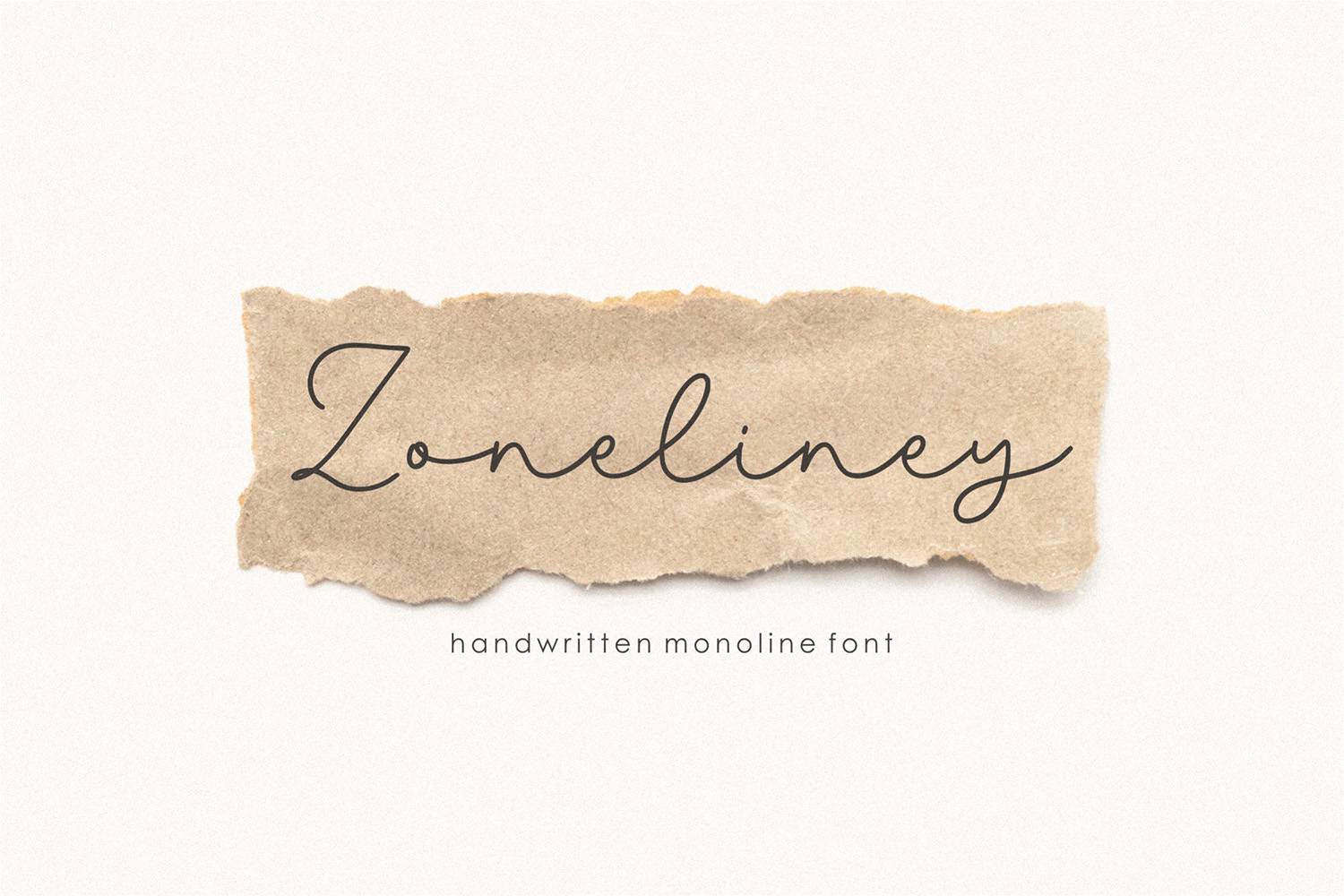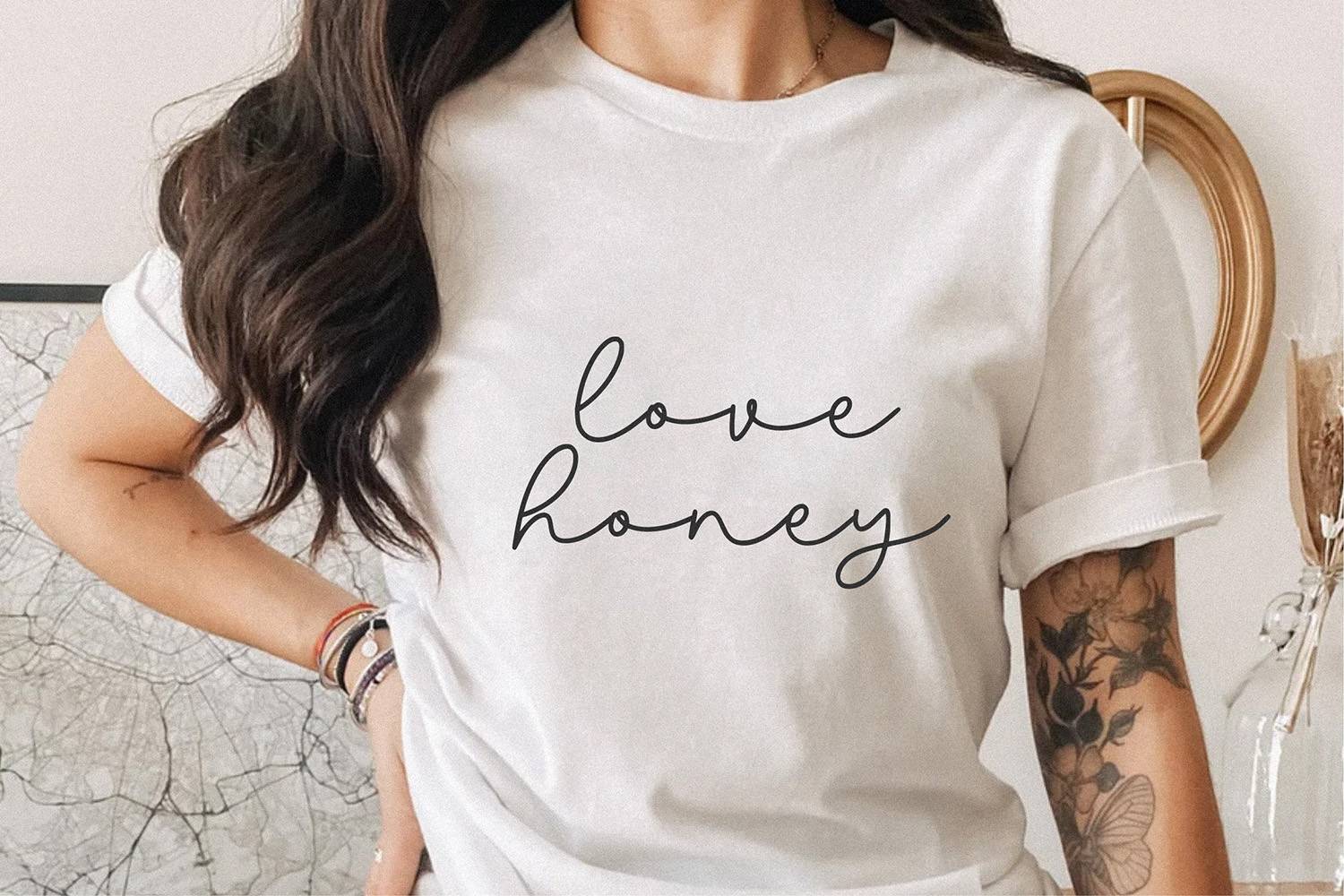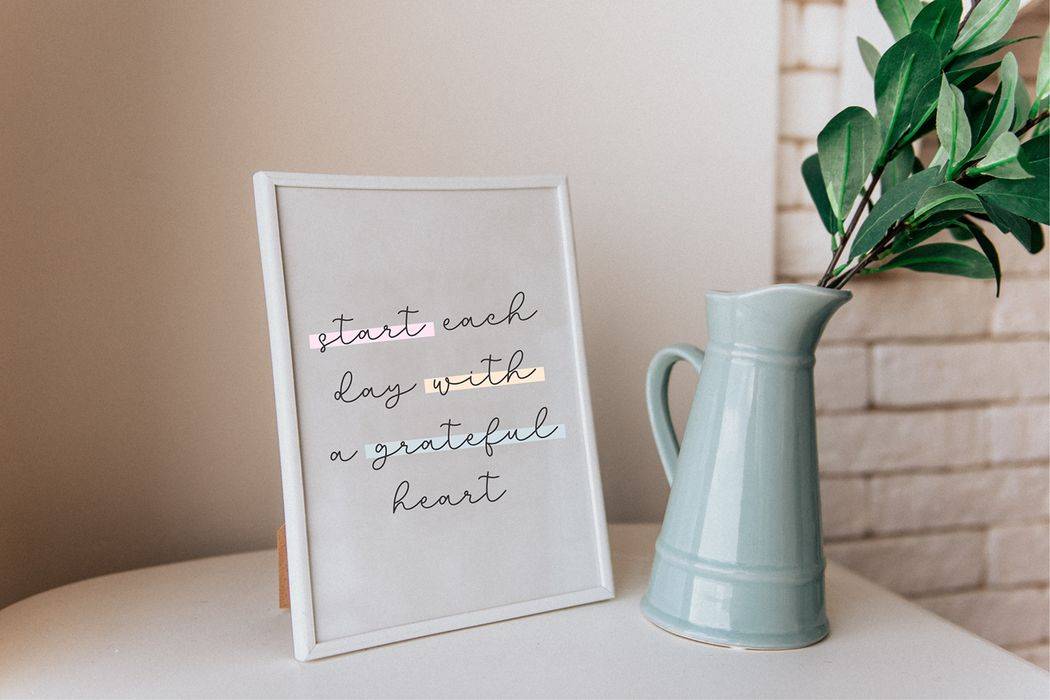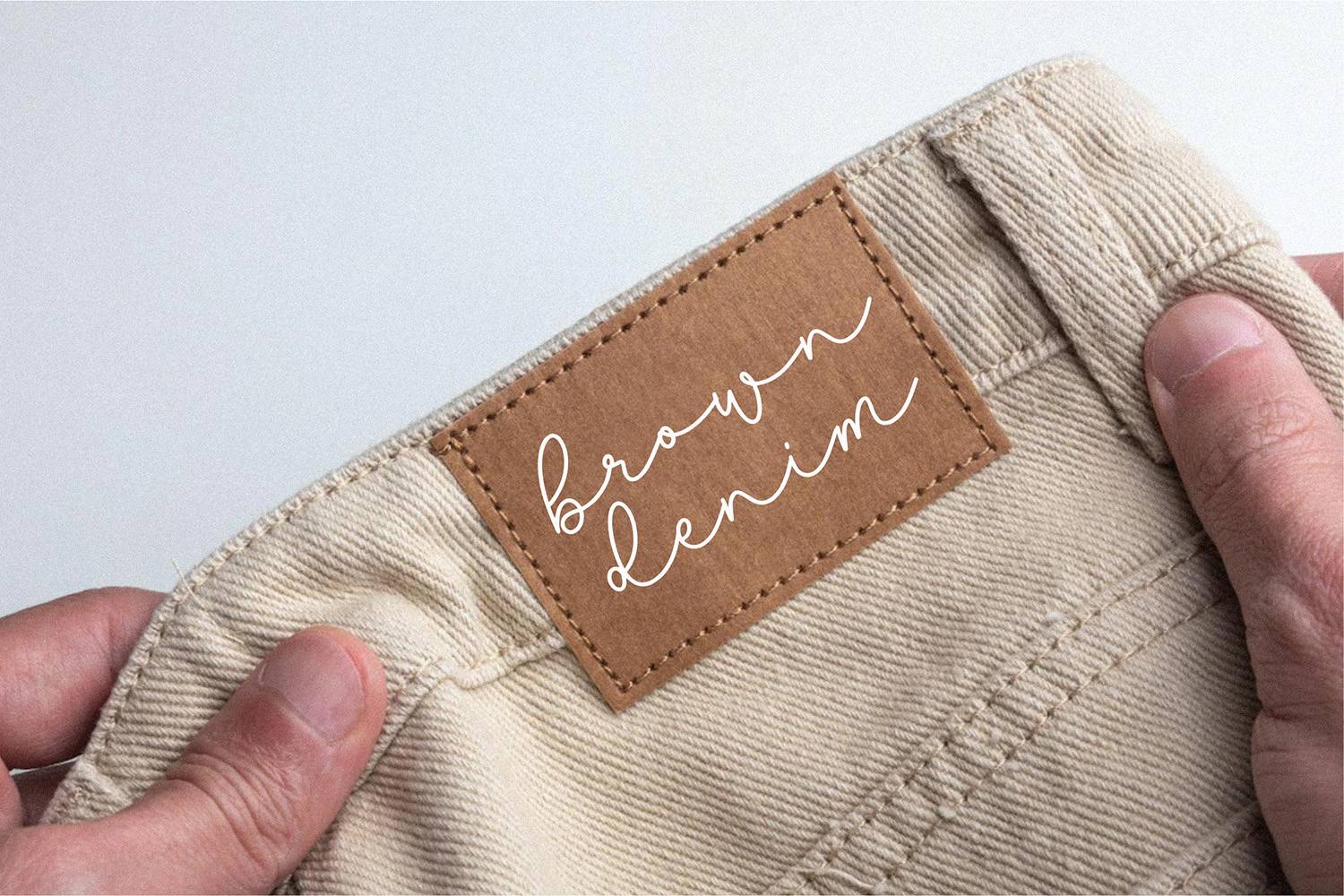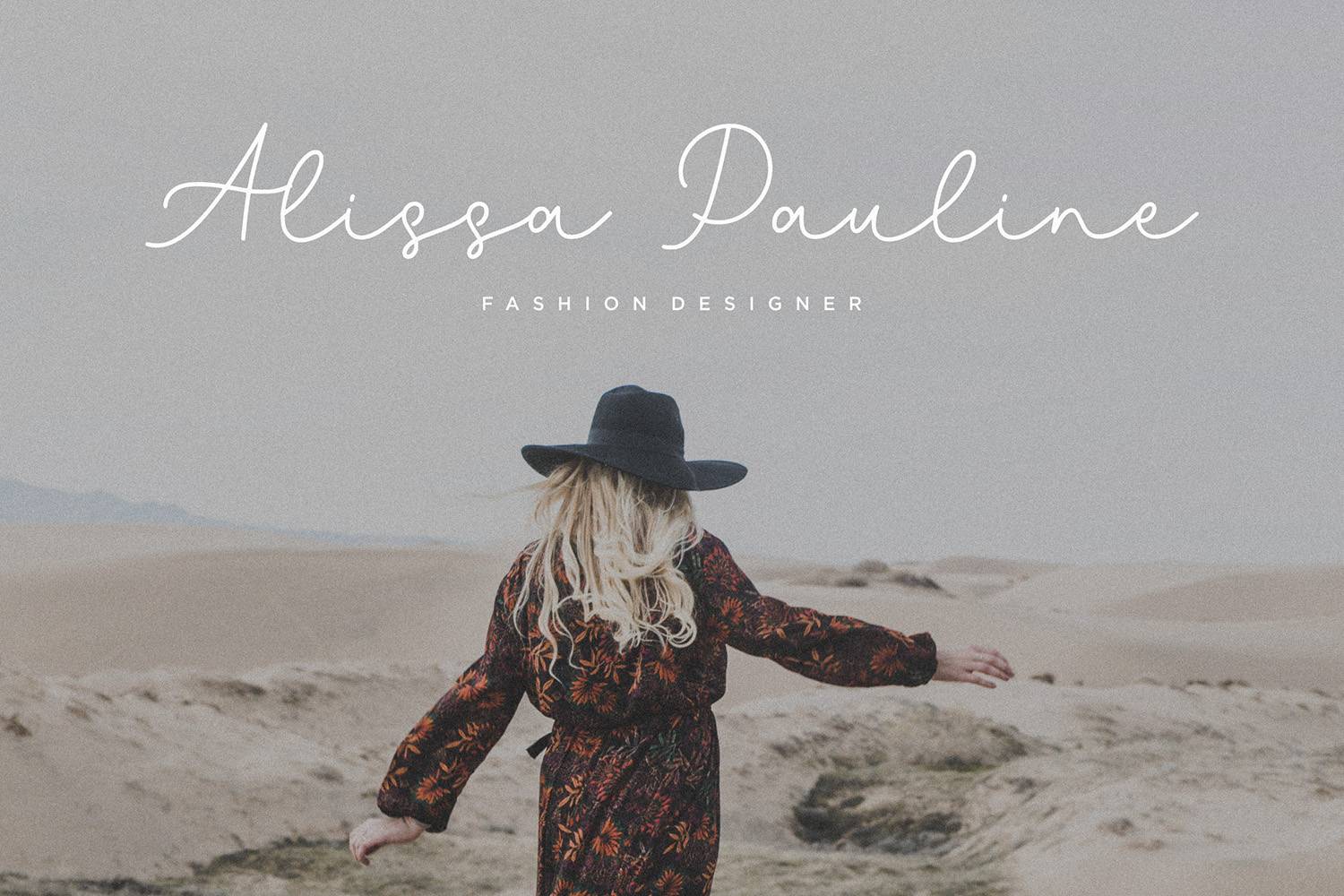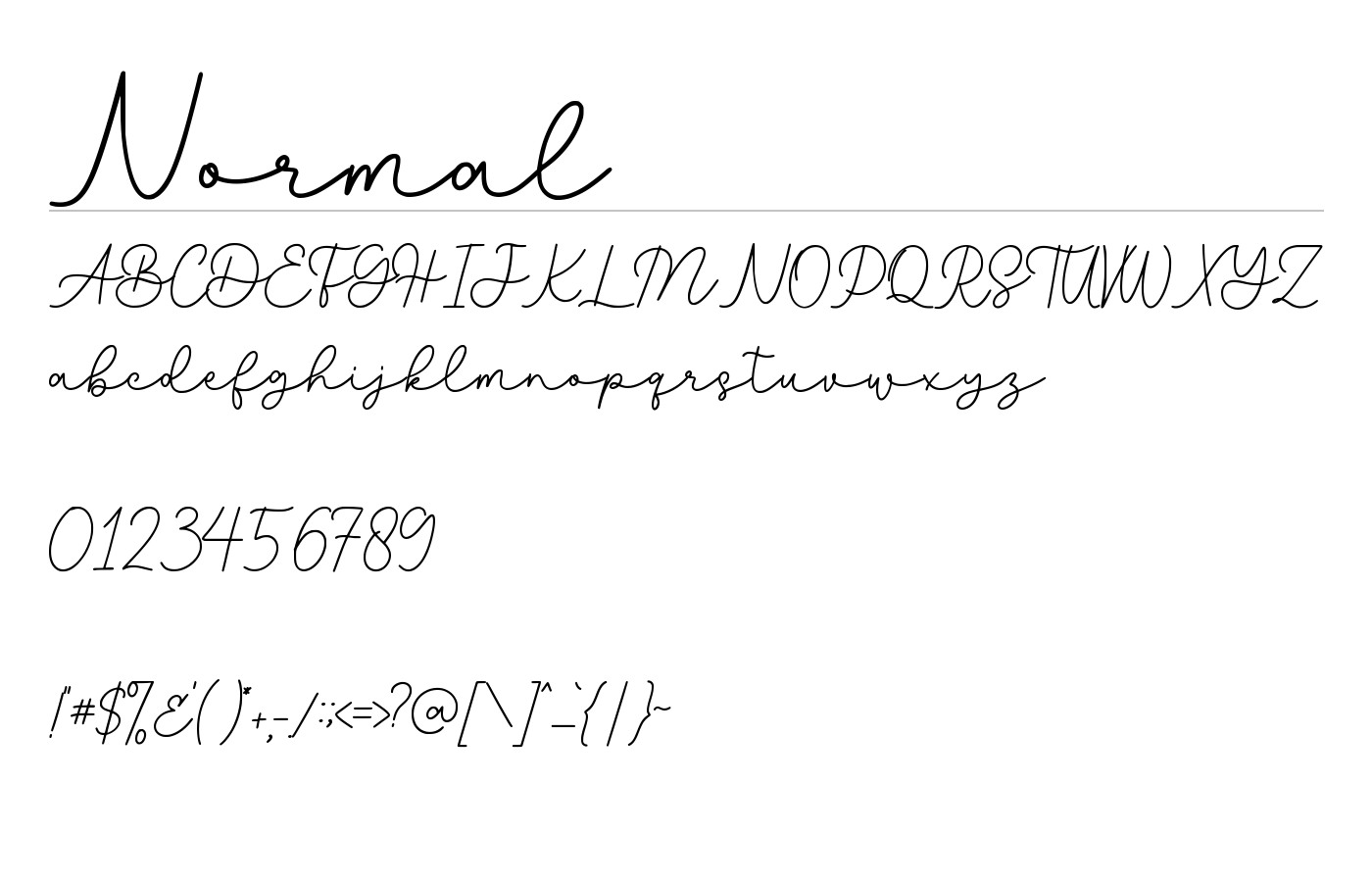
Zoneliney is a delicate, lightweight script font that mimics elegant, hand-drawn handwriting with smooth, flowing strokes and a refined, airy feel. Its clean, narrow letterforms and consistent stroke width make it ideal for stylish invitations, personal branding, and sophisticated editorial projects where a touch of grace and personality is desired. This font works beautifully in designs that call for subtle charm and a modern handwritten aesthetic without overwhelming the overall composition.
Zoneliney Font
About Zoneliney Font